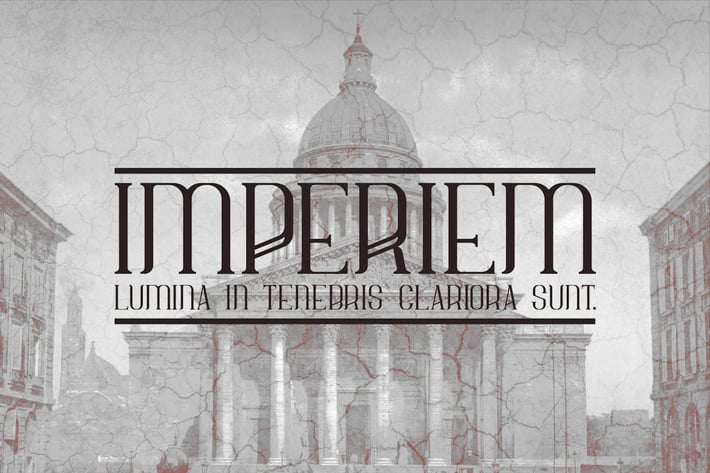
Imperiem regular typeface
This simple yet unique serif typeface is inspired from the architecture and characteristics of ancient European civilizations. This font set is based on two contradictory elements. The strong straight vertical lines represent the supportive pillars of the Greek and Roman architecture, in correlation with the thin connection lines, which contribute to the elaboration of the perfect inner balance.